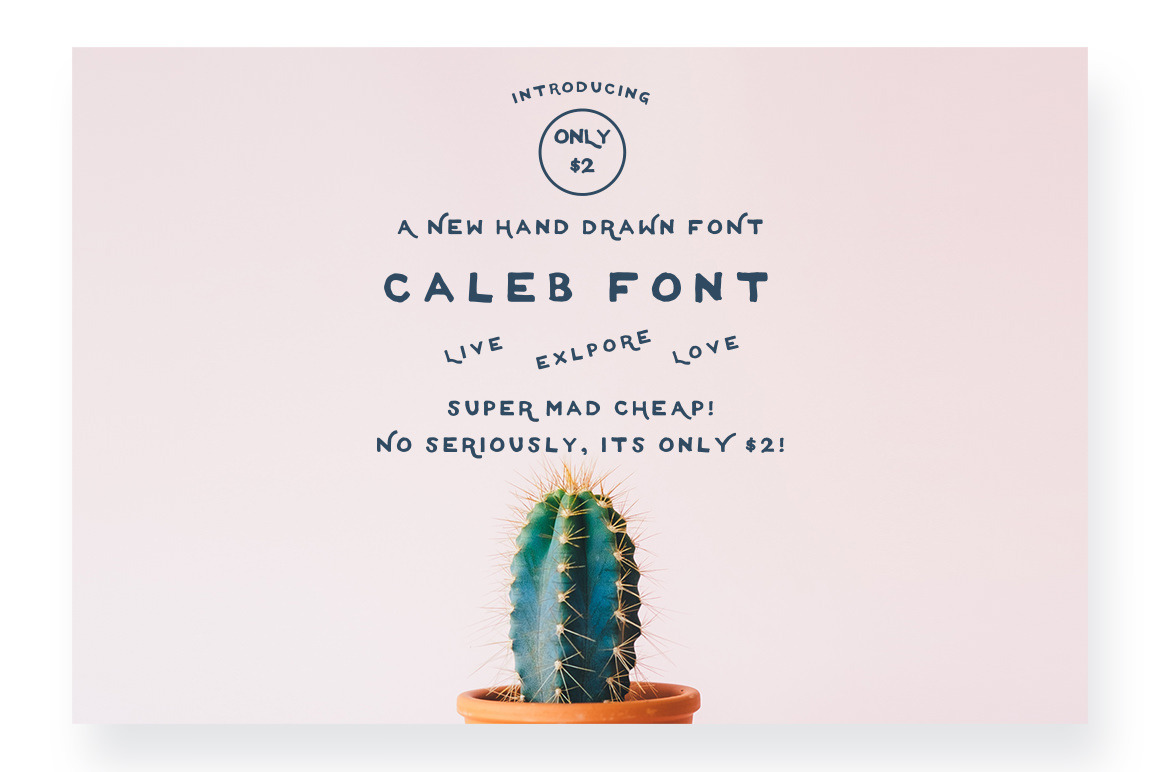
Caleb ~ A Hand Drawn Font
Caleb, our most popular font, is a new hand drawn typeface, available from Greenhouse Supply Co. by Justin Greene. Great for Logos, Stationary, Posters, Apparel, literally everything design related. It includes alternate ligatures for several of the uppercase characters, just to achieve that Vintage signage & hand drawn inspired feel.
As with anything made by Greenhouse, expect only the best, from the kerning to the alternates, down to the smallest details. The alternate uppercase characters are perfectly kerned for your use. Made for designers, by designers.